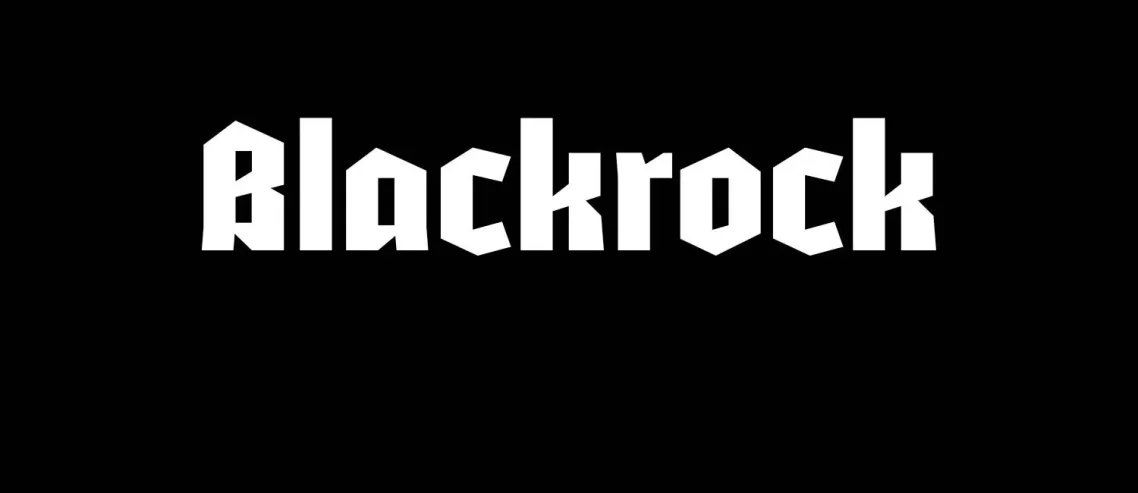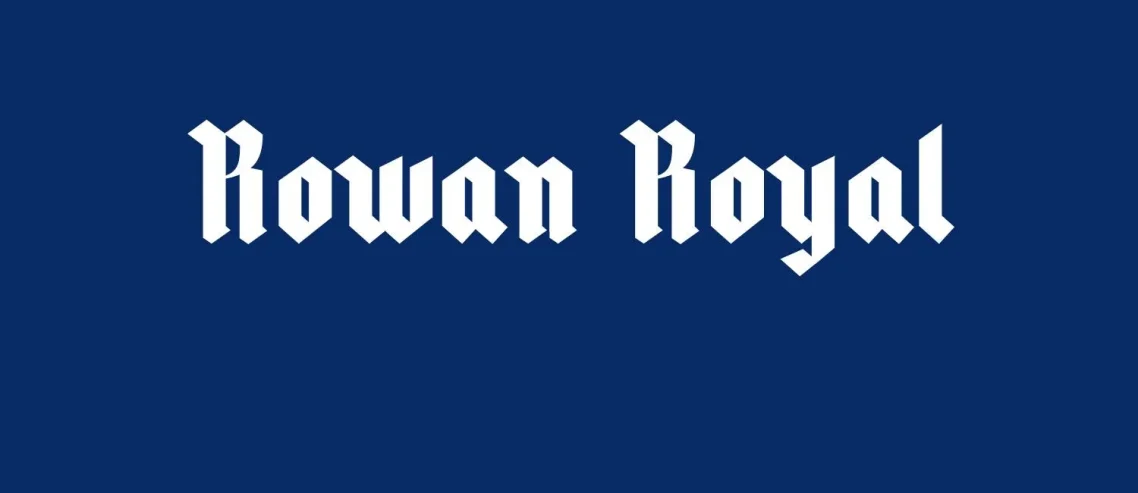
Rowan Royal Font Free Download
Rowan Royal, a sophisticated and elegant font, was created by The Brosnes Design Co. Its timeless design makes it suitable for a variety of projects, from invitations to branding materials. The font supports TTF and OTF file formats, ensuring compatibility with different design software. In MS Word, Rowan Royal can be used to add a …
Blackrock Typeface Font Free Download
Ahmet Altun is the mastermind behind the Blackrock Typeface Font, a captivating display font that commands attention. Categorized as a display font, it is specially designed for impactful headlines and titles. Ahmet Altun’s creation features bold and distinctive letterforms, showcasing a unique style that sets it apart. Blackrock Typeface Font is an excellent choice for …